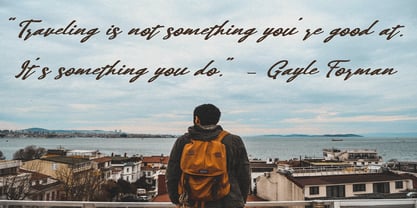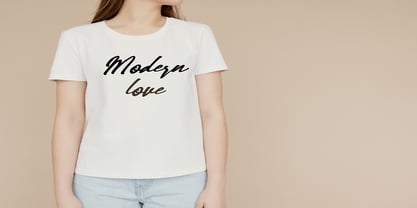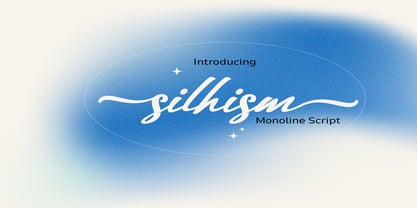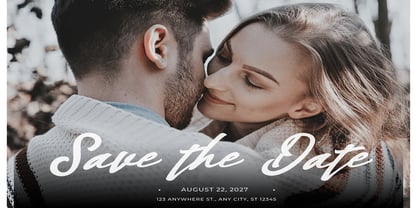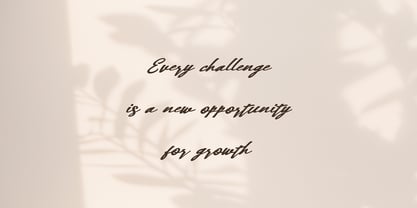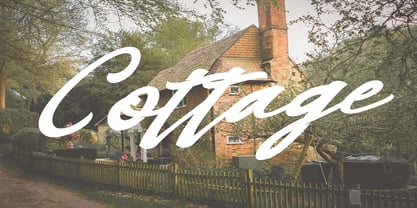
Silhism
by Dream Font
The Silhism Font Family was designed by Ron Zwingelberg and published by Dream Font. Silhism contains 1 styles. More about this family
Silhism is a sweet and cursive handwritten font. This gentle font will look gorgeous on a variety of design ideas. It will add a joyful and romantic touch to each of your projects! This font is PUA encoded which means you can access all of the glyphs and swashes with ease!